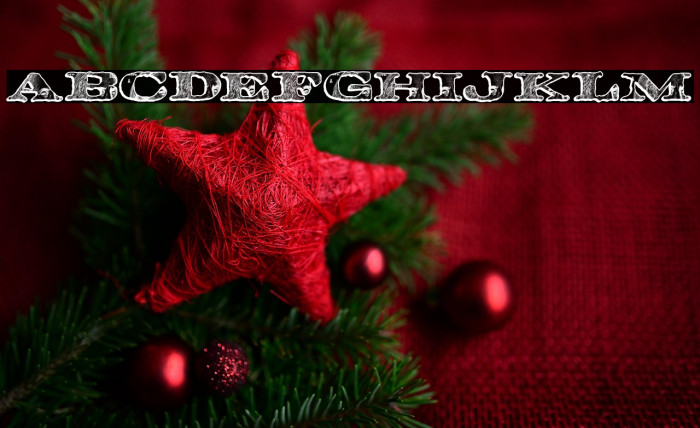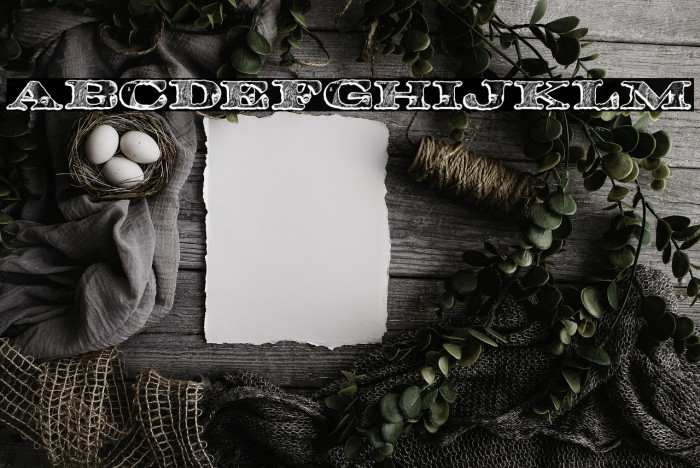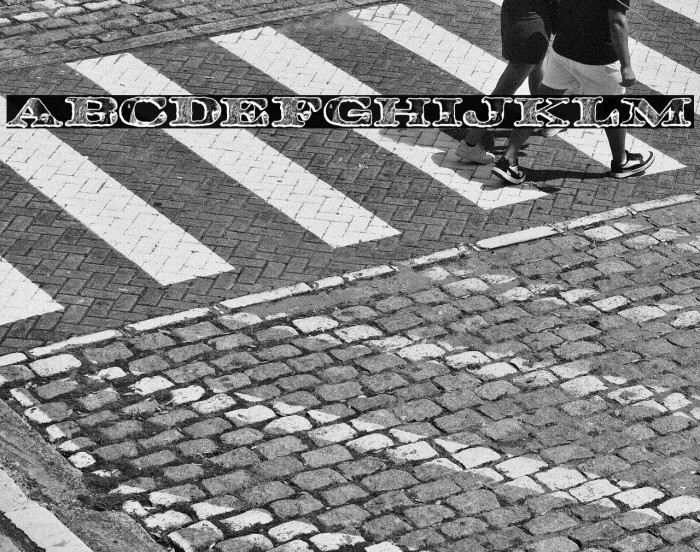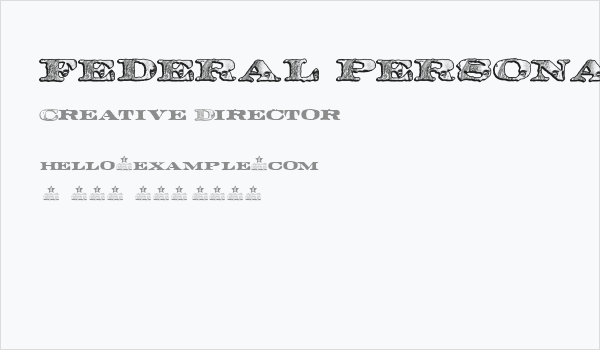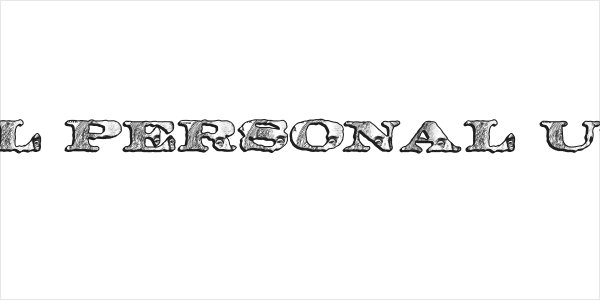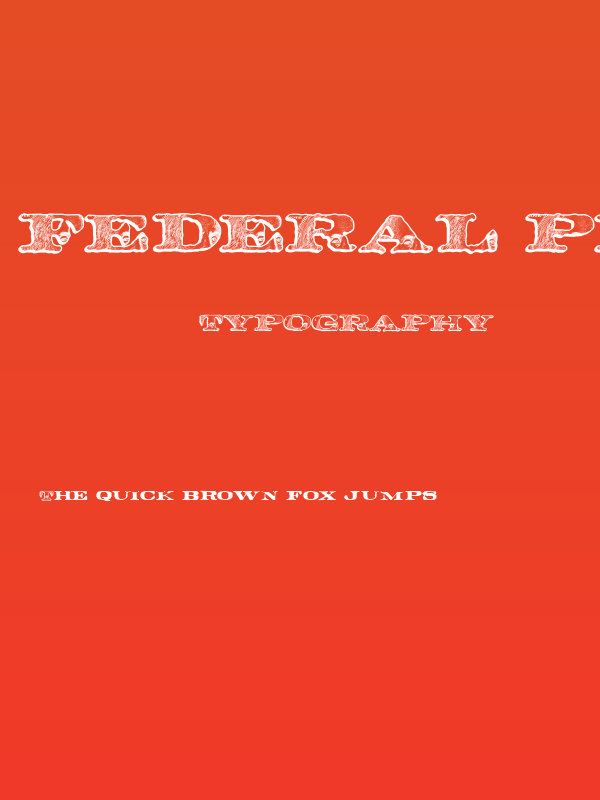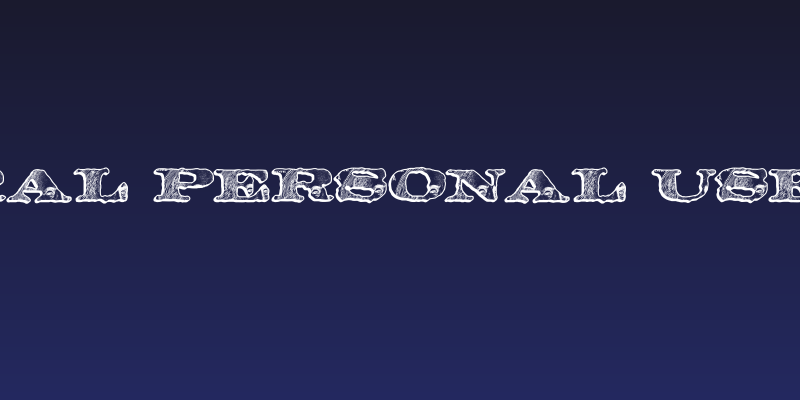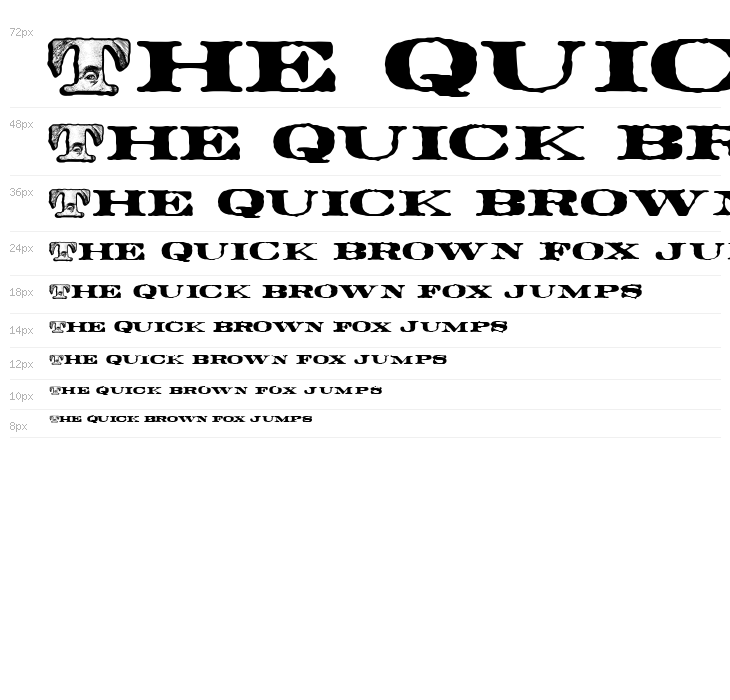
FEDERAL PERSONAL USE Bold Font
FEDERAL PERSONAL USE Bold Description
This font features a bold and decorative style with intricate detailing within each character. The uppercase letters are designed with a rugged, textured appearance, giving them a vintage and distressed look. The font's boldness is emphasized by its thick strokes and high contrast, making it stand out prominently. The unique design elements within each letter add a layer of complexity and artistic flair, suitable for creative and eye-catching projects.
| Overall Style | Vintage, Decorative |
| Proposed Projects | Ideal for vintage-themed posters, logos, and branding materials that require a bold and artistic touch. |